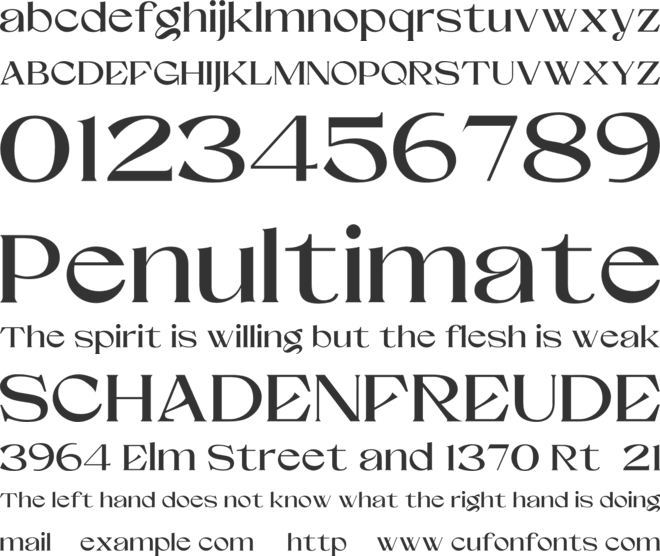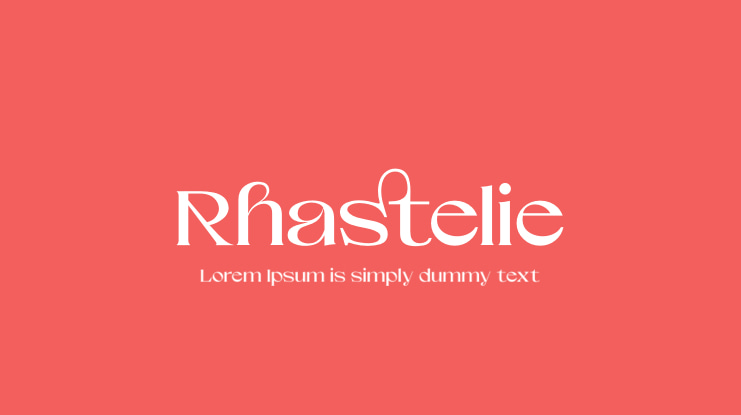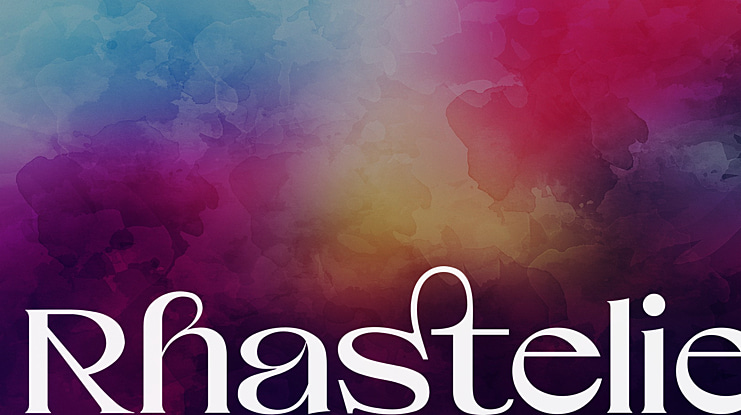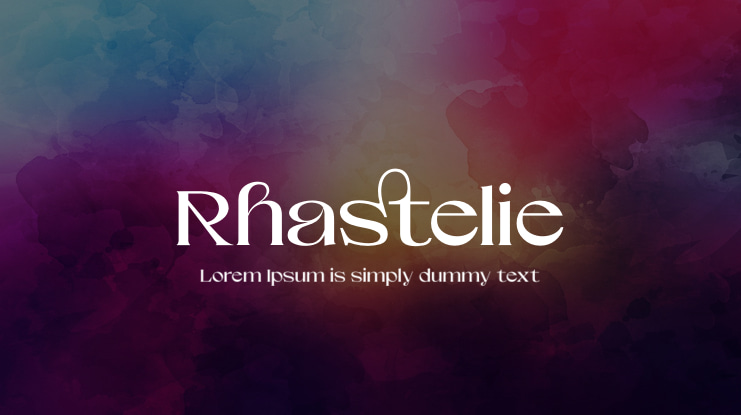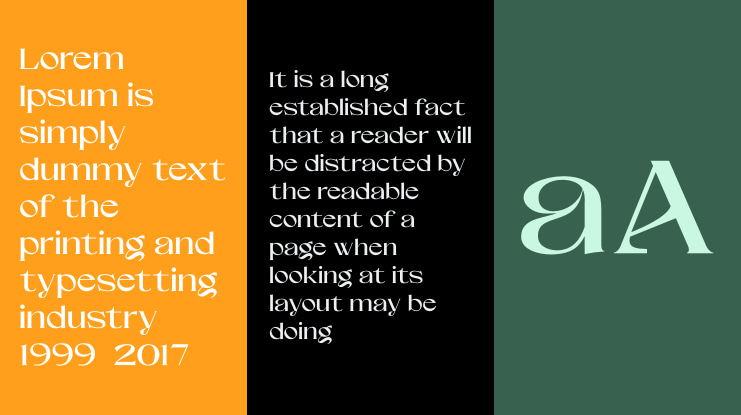
Rhastelie Font Family
Introducing our new "Rhastelie" Elegant Serif Font with beautiful and luxury touch. Rhastelie will pair beautifully with many fonts and work well with whatever project you're working on.
Rhastelie is perfect choice for people looking for clean, modern, minimalist, elegant, beauty design styles. Suitable for almost any graphic designs such as logo, branding materials, business cards, gift cards, t-shirt, cover, thumbnail, print, poster, photography, quotes .etc